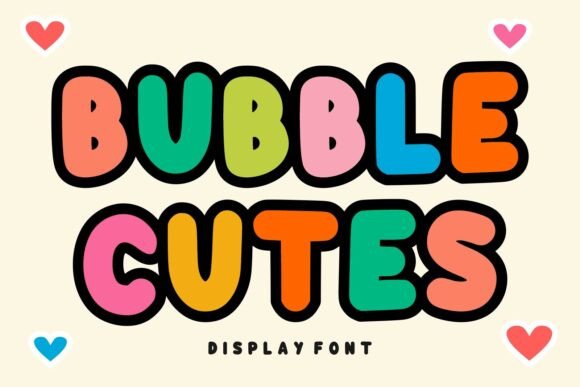
The Joy of Bubble Cutes Font: A Designer’s New Best Friend
I’ll never forget the time I was working on a project for a kids’ birthday party, and I just couldn’t find the right font to capture the playful vibe I was going for. The client wanted something fun, colorful, and eye-catching, but everything I tried seemed either too boring or too over-the-top. That’s when I stumbled upon Bubble Cutes Font, and let me tell you, it was love at first sight! 💕
This adorable bubble display font has become my go-to for any project that needs a friendly, cheerful touch. In this article, I’ll share my honest review of Bubble Cutes, a practical guide on how to use it, and some helpful tips and tricks to get the most out of this amazing font.
My Honest Review of Bubble Cutes Font
- Rounded shapes and bold outlines that give it a fun, playful feel 🎉
- A wide range of uses, from kids’ designs to cheerful branding projects 📈
- Perfect for both digital and print use, making it super versatile 📊
- Easy to read, even in smaller sizes, which is a huge plus 📚
- The fun, colorful style that adds a pop of personality to any design 🌈
- Some letters, like “j” and “p”, might require a bit of manual kerning for optimal spacing ⚠️
- While it’s a display font, it might not be the best choice for body text or longer paragraphs 📄
A Practical Guide to Using Bubble Cutes Font
- Take advantage of OpenType features, like glyphs and stylistic alternates, to add more variety to your text
One of the best things about Bubble Cutes Font is its support for OpenType features and glyphs. These allow you to add more variety and personality to your text, making it even more engaging and fun. Here are some tips for using OpenType features:
- Experiment with different stylistic alternates and swashes to add more flair to your text
The Backstory Behind Bubble Cutes Font
Bubble Cutes Font was designed with one goal in mind: to bring joy and creativity to designers and crafters. The designer, a passionate typographer, wanted to create a font that would add a pop of personality to any project. Inspired by the whimsy of childhood and the playfulness of bubbles, Bubble Cutes Font was born. 🌟
Q: Is Bubble Cutes Font suitable for body text?
A: While Bubble Cutes Font is a beautiful display font, it might not be the best choice for body text or longer paragraphs. However, it’s perfect for headings, titles, and short text snippets.